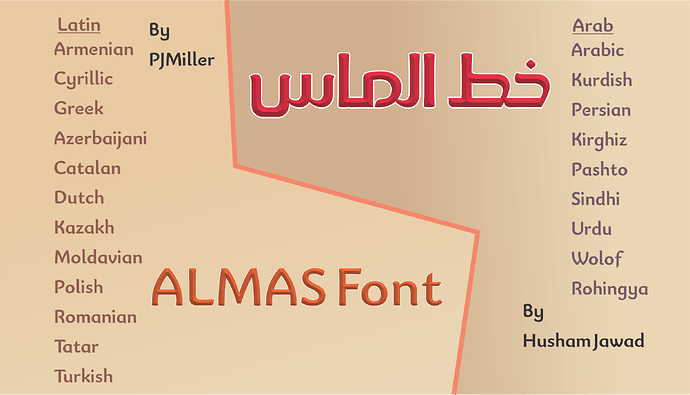
I would like to introduce ALMAS Font, it was the result of cooperation between me AND PJMiller, the font support a lot of scripts (Arabic and latin), ALMAS font was derived from Bainsley font.
This is turning out to be an international effort. The Latin parts were not entirely my own, I had help with the Cyrillic from Stanislav Bycouchev and help with the Armenian from Ruben Hakobyan.
Now Husham has put in a lot of work on all the Arabic languages. The result is really good. I just gave a little help with one of the open type features.